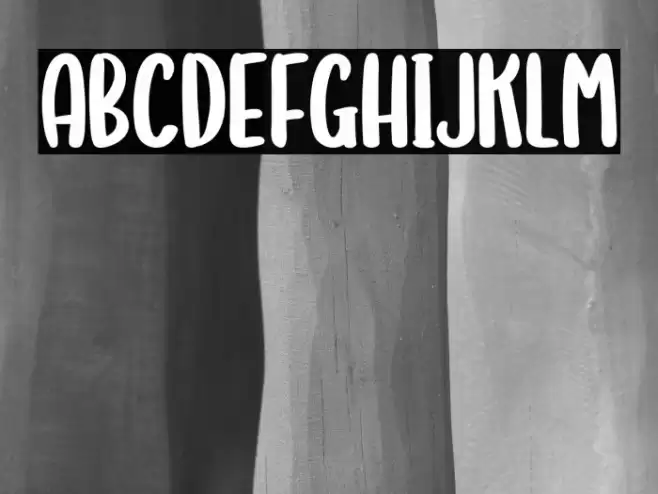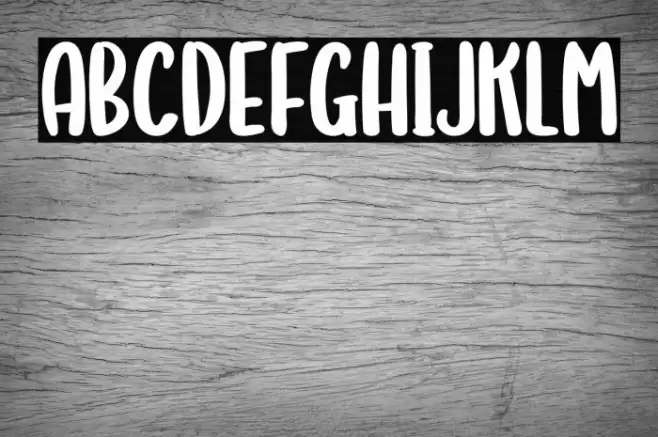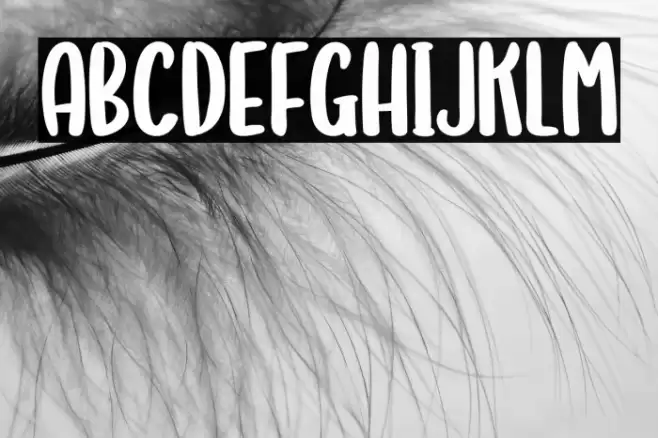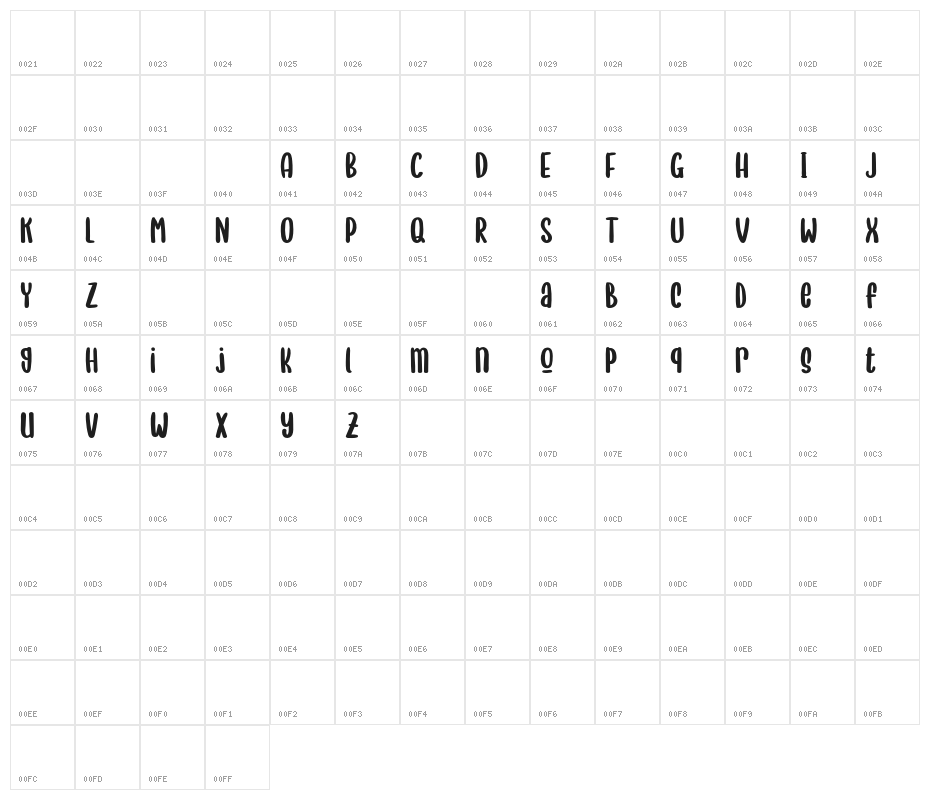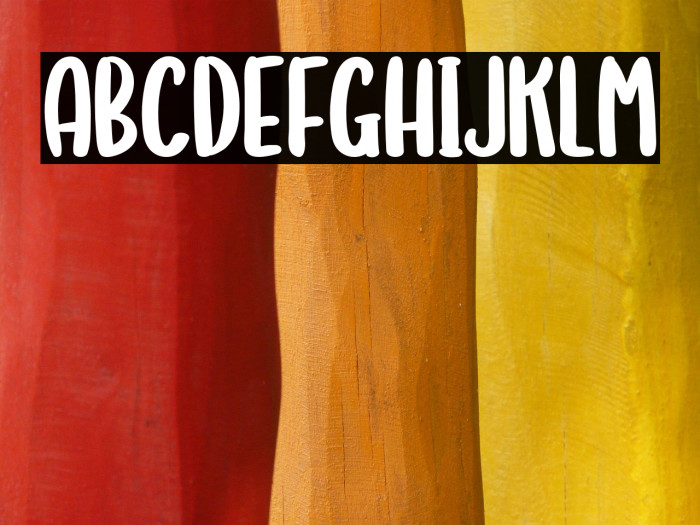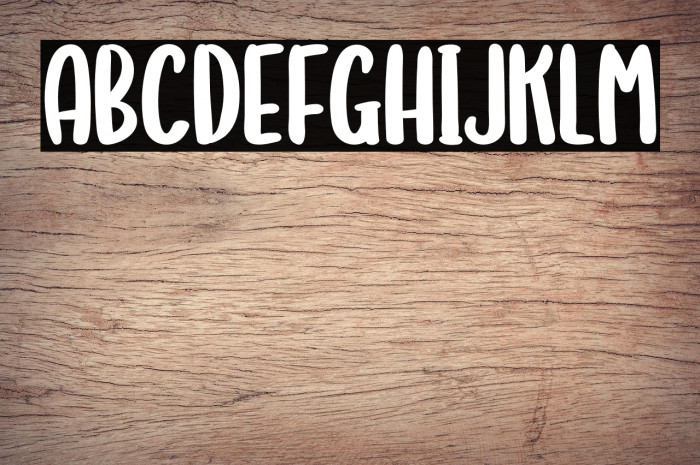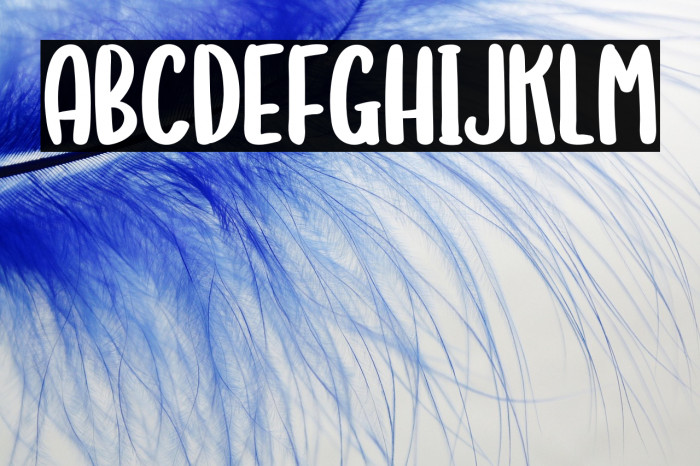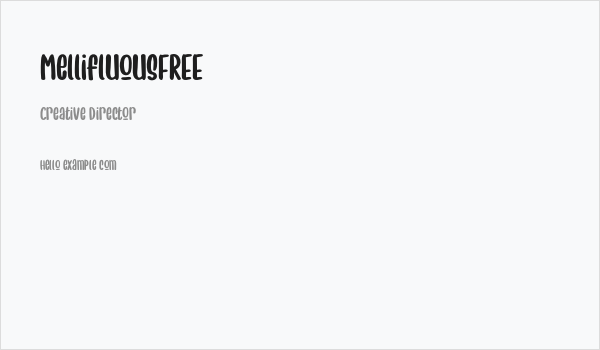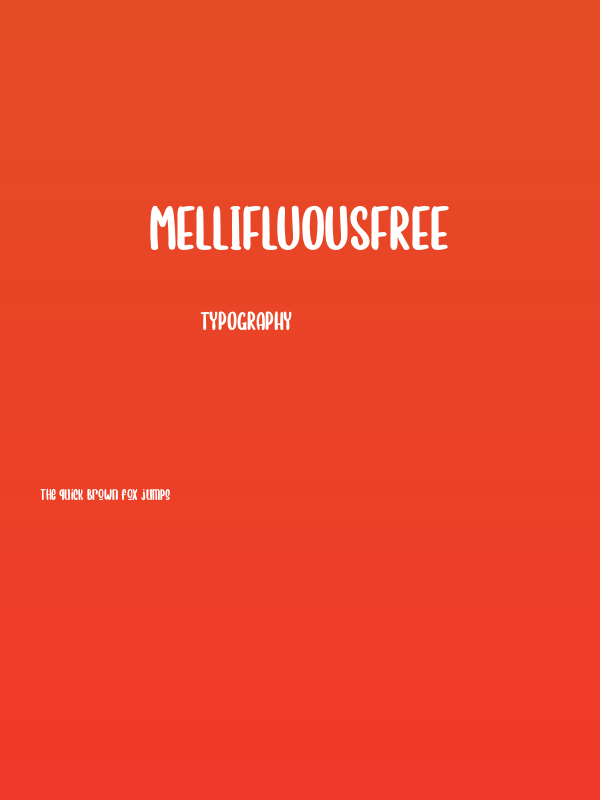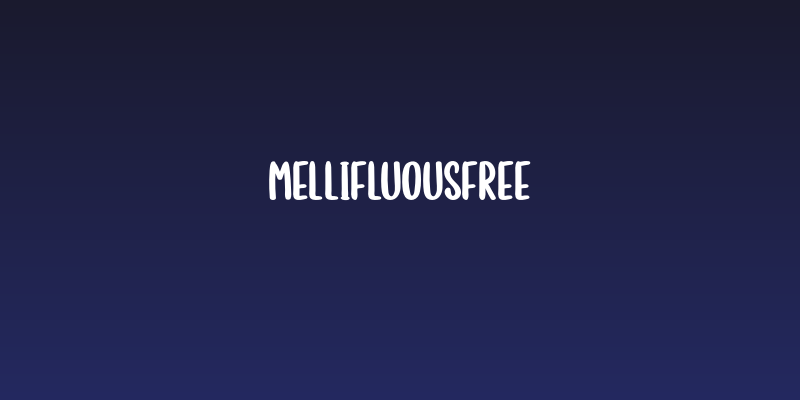
MellifluousFREE Font
MellifluousFREE Description
This font features a playful and bold style with rounded edges and a consistent stroke width, giving it a friendly and approachable appearance. The characters are slightly condensed, which adds to its unique charm. The uppercase and lowercase letters maintain a cohesive look, with smooth curves and a slight bounce that adds a whimsical touch. The numbers and special characters are designed to match the overall style, ensuring a harmonious look across all text. This font is perfect for projects that require a fun and lively aesthetic.
A playful, bold font with rounded edges and a whimsical touch from Uncategorized fonts.
- Font: MellifluousFREE
- Proposed Projects: Ideal for children's books, playful branding, greeting cards, and social media graphics.
- Overall Style: Playful